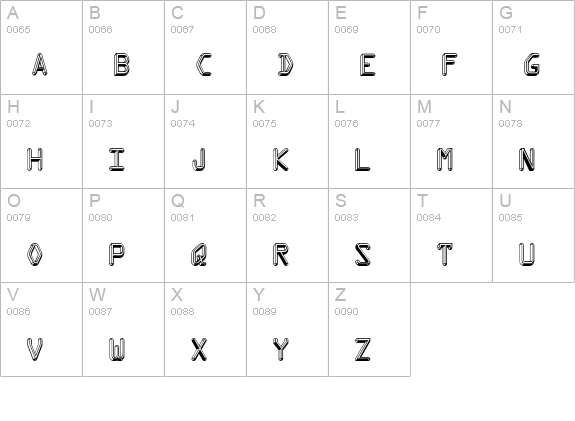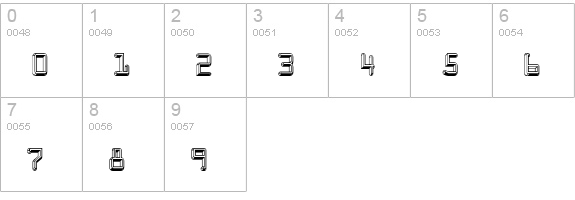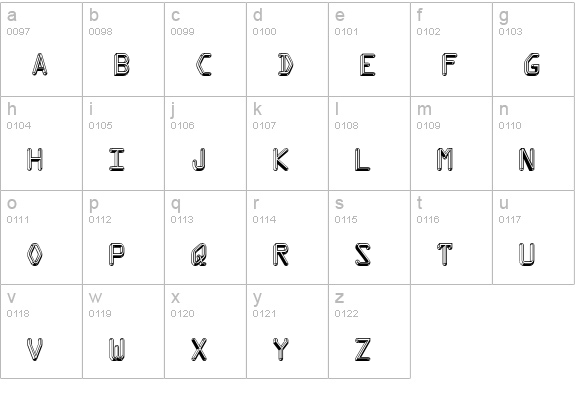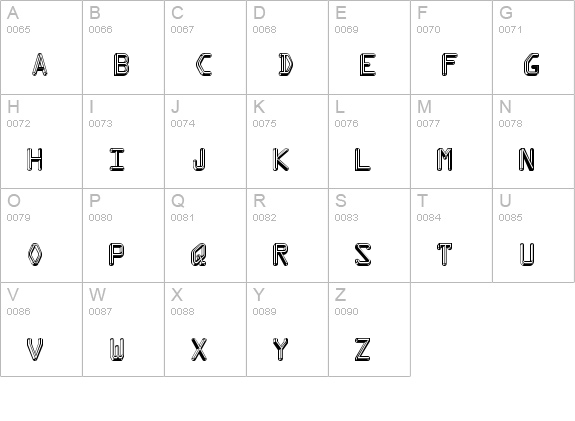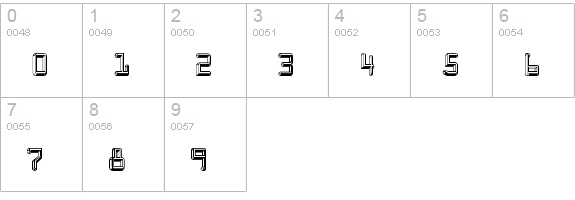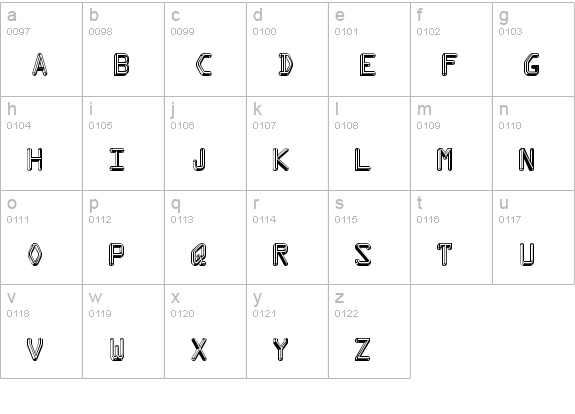
Kredit Font Details
Kredit font is a stunning display typeface that exudes elegance and sophistication. Its sleek lines and modern design make it perfect for a wide range of creative projects, from branding to editorial design. This versatile font offers a unique blend of style and readability, making it ideal for both headlines and body text. What sets Kredit font apart is not just its aesthetic appeal, but also the fact that it is available for free download at FontsMarket.com. This means that you can easily access and use this beautiful font in your projects without any cost involved. Whether you are a designer looking to add a touch of sophistication to your work or a business owner seeking a distinctive font for your branding, Kredit font is the perfect choice. Download it today and elevate your designs with this stunning typeface.